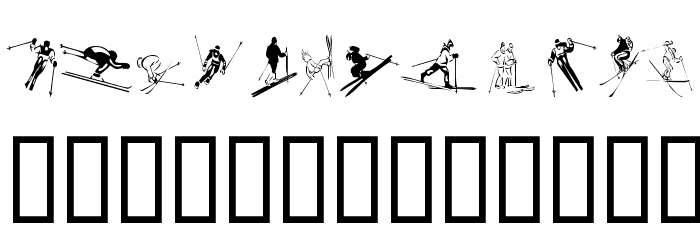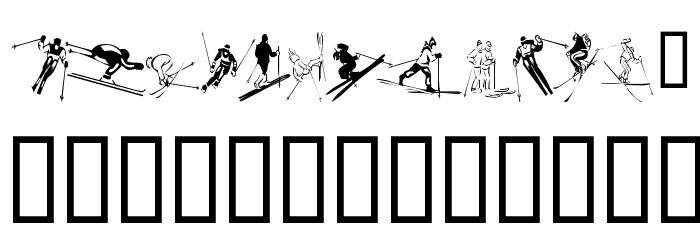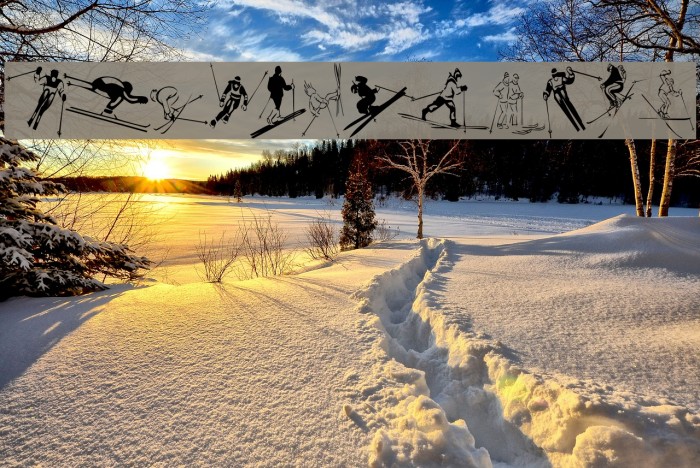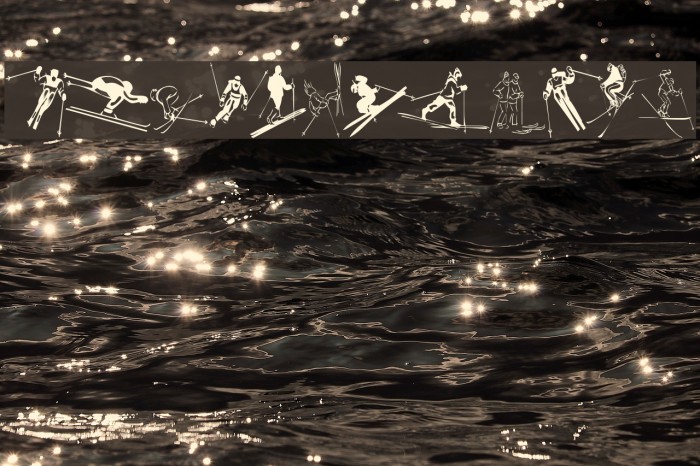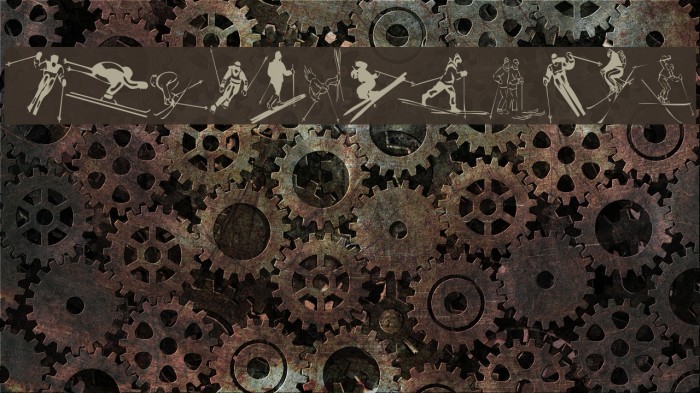
KR Ski Font
This is a decorative font featuring a series of stylized skiing illustrations. Each character is represented by a unique skiing pose, capturing dynamic movement and winter sports themes. The font is visually engaging, with detailed line work that emphasizes the action and fluidity of skiing. It is designed to evoke a sense of adventure and excitement, making it ideal for projects related to winter sports, outdoor activities, or thematic events. The illustrations are consistent in style, offering a cohesive look across all characters.
A decorative font with skiing-themed illustrations for each character.
- Proposed Projects: Ideal for winter sports event posters, ski resort branding, themed invitations, or any project needing a sporty, adventurous touch.
- Use Case: Logos, Headlines, Themed graphics